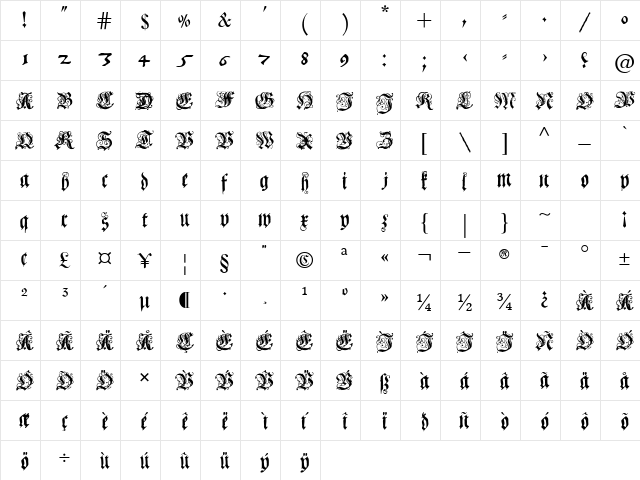
Coelnische Current Fraktur OsF UNZ1 Italic Font Preview
Design Context for Coelnische Current Fraktur OsF UNZ1 Typeface
Coelnische Current Fraktur OsF UNZ1 draws on the rich tradition of blackletter calligraphy, with dense, angular strokes that evoke medieval manuscripts and old-world craftsmanship. The dynamic lean of this cut emphasises speed and emphasis in any layout.
A natural fit for music packaging, gothic editorial design, and any project that needs historical weight.
Font Pairing: Pair with a clean neutral sans-serif for body copy to let Coelnische Current Fraktur OsF UNZ1's character lead without overwhelming the composition.
Pro Tip: Reserve Coelnische Current Fraktur OsF UNZ1 for display and logo use — pair it with a clean sans-serif for body copy to prevent the composition from feeling oppressive.